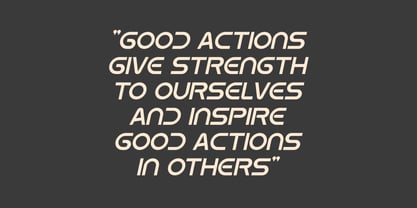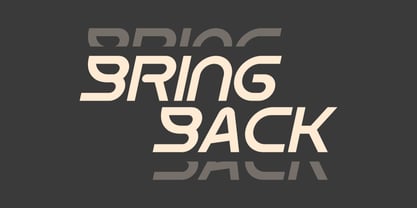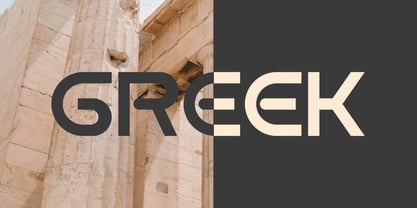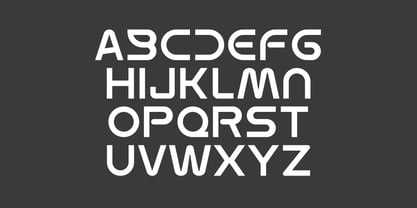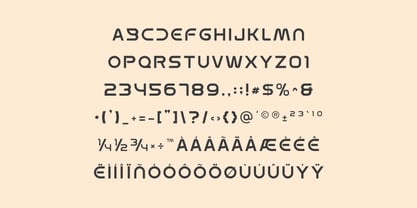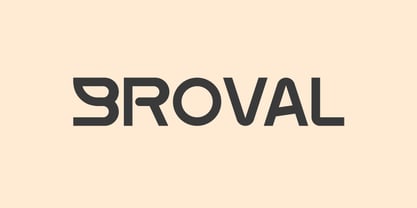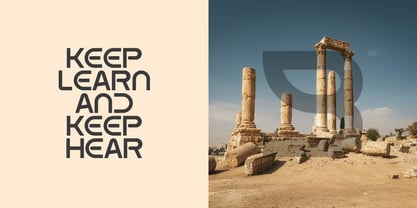
Broval
by Artiveko
The Broval Font Family was designed by Iwan Alwan and published by Artiveko. Broval contains 2 styles and family package options. More about this family
Broval is a powerful sans serif font designed to make a statement. With its thick strokes, sharp edges, and solid geometric structure, Broval delivers strength and confidence to any design. Perfect for impactful headlines, logos, posters, sports graphics, product packaging, and modern branding, Broval ensures your message stands out loud and clear.
Its bold, clean letterforms provide excellent readability while maintaining a sleek and contemporary look. Ideal for projects that need an assertive and professional presence, Broval adapts seamlessly across both print and digital media.
The font includes uppercase and lowercase letters, numerals, punctuation, multilingual support, and stylistic alternates for versatile creative options.
Command attention with Broval — the strong sans serif font that combines power, precision, and modern style in every character.
Designers: Iwan Alwan
Foundry: Artiveko